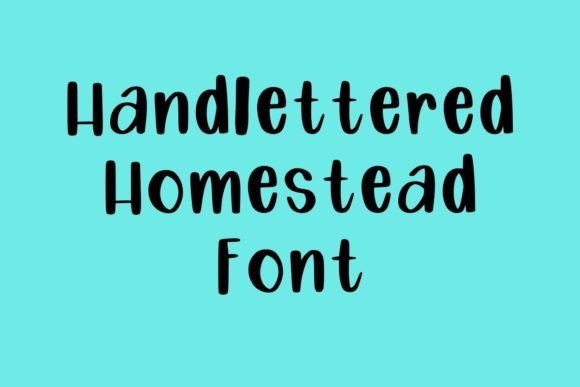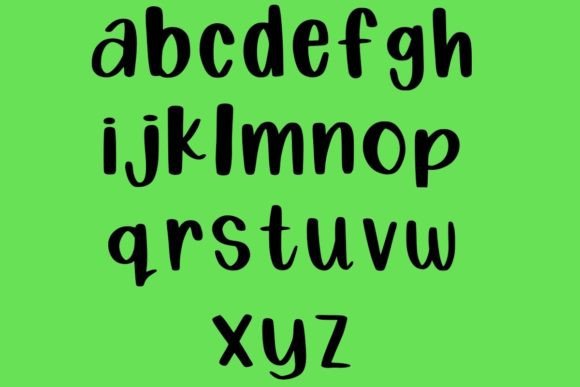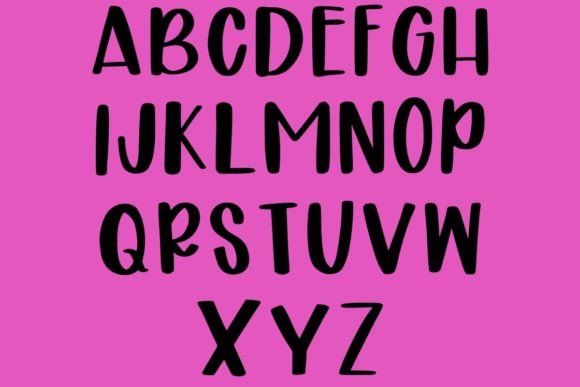
Handlettered Homestead Font
About the Handlettered Homestead Font
Presenting Handlettered Homestead Font, a unique and stylish typeface that will make your work stand out. Handlettered Homestead is a cute, unique handwritten font. One your projects will benefit from. Use this cute font to create designs for signs, cards, shirts, and more! This font has a bold stroke followed by a thin stroke making the font look written with a marker. This font is compatible with circuit, procreate, etc. Happy Creating!
Handlettered Homestead’s bold strokes and thin contrasts lend themselves well to headlines, short text blocks on packaging, and eye-catching signage. It’s ideal for crafting a friendly, approachable brand identity, particularly for businesses related to crafts, food, or family-oriented products. Avoid using it for lengthy body text or UI elements; its informal nature compromises readability in continuous paragraphs.
Pairing Handlettered Homestead with a clean sans-serif like Open Sans for body copy creates a balanced, professional look. For a more playful feel, consider a geometric sans-serif such as Montserrat. If a touch of elegance is needed, a delicate serif font such as Lora would complement its handcrafted charm.
The overall personality of Handlettered Homestead is cheerful and approachable, conveying a sense of warmth and handmade authenticity. Its informal style is best suited to projects emphasizing a casual, friendly aesthetic.